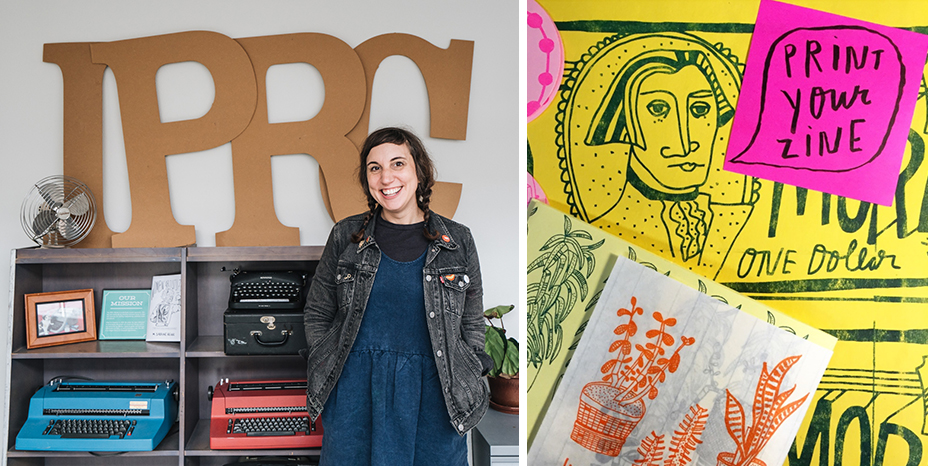
No. 176: Designer Chain Letters, Olde English “Craeft,” the Fonts of the New Year + More
Hello, and welcome to this week’s Design Diary, a collection of five projects from across the world that have impressed us this week.
Communication, by Albert Moya
Chef and artist Laila Gohar uses food as an artistic medium and communication tool, hosting “unique eating experiences that take place in non-traditional settings” around the world. When she created a food volcano a few years ago, it caught the eye of Albert Moya. It sparked the idea for Communication, a film made for Dropbox and The California Sunday Magazine’s Dropbox Stories campaign, which asked Gohar and three others, all located in different countries, to build an actual food volcano in Iceland.
Naturally, they used Dropbox to communicate. But the film is lovely: the four artists describe it as a visual dialogue amongst themselves, inspired by the work of Chris Marker. They explain, “it uses the free association of images and ideas. A voice-over accompanies explanatory text that reinforces the poetic and visual intentions.” It stars Moya in Florence, Gohar and Omar Sosa (a graphic designer) in New York, and Querida—who also provided the art direction— in Barcelona.
AIGA Portland, Portland Makers Series
“Imagine that your uncle is Robert Rauschenberg and that he leaves you his printing studio when he passes away,” starts out a new installment of the Portland Makers Series from our friends at Portland AIGA. “You and your favorite art buddies adopt it as your second home, exploring all his legendary printing methods and making art experiments for hours at a stretch. That’s what IPRC feels like—a dreamy art garage with a wide array of printing equipment.”
The Independent Publishing Resource Center in Portland.
For the uninitiated, writer Marilee Sweeney is rather poetically describing the Independent Publishing Resource Center. Founded by Rebecca Gilbert and Chloe Eudaly 20 years ago as a zine printing room, the center is now a 2,000 square foot space, “housing a wall of 20” iMacs, a screen-printing studio, a letterpress studio, a zine library, a bindery, and meeting spaces.” Membership fees are “radically low,” which feels very fitting to Portland, with those who can’t afford it able to volunteer. As Sweeney writes, “Generations of Portlanders have used IPRC to screen-print show posters, letterpress cards, bind chapbooks of their poetry, meet with their writing groups, and print their comic books.”
Plus, they’ve got a brand new, Kickstarter funded Risography studio. Even if you’re not able to pop over to Portland, these kinds of accessible, community focused maker spaces are getting rarer and rarer in cities these days—it’s interesting to see how this one’s maintained itself for two decades. Read on here.
Moo font forecasting
Welp guys, another year of fonts down, and a new one just begun. What typefaces can we expect to see all over the place in 2018? Digital print and design company Moo is on it: it’s tapped into its customer base to surveyed 1,300 of the design-savvy across the United States. Now it’s got Fonts of 2018 ready for us, based on the survey findings.
Here’s the forecast, according to Moo:
In the “Up and Coming” category:
● Basic Commercial
● Nexa
● Saturday Script
● Basis Grotesque
● Freight Sans
● Alcubierre
● Quainton
● Fortescue
● Leroy
● Luxia
And those “Go-tos”:
● Avenir
● Helvetica
● Avant Garde
● Proxima Nova
● Futura
● Garamond Pro
● Brandon Grotesque
● Gill Sans
● Sackers Gothic
● Georgia
“The biggest up and coming trend we’re seeing? The importance of simplicity,” says Moo’s global creative director, Brendan Stephens. “With the exception of Saturday Script and Quainton, the font choices are quite plain and slightly retro.” Nexa, he adds, “feels a bit utilitarian and masculine, both good in the right context.” And Helvetica’s holding in there, to no one’s surprise—61st year running.
4
Michael Bierut’s review of Craeft
“As daily life becomes increasingly virtual, it might seem like a paradox that making things by hand is suddenly big business,” observed Michael Bierut over at the New York Times Book Review last weekend. “Stores like Michaels and Hobby Lobby feature aisle after crowded aisle of sequins, tassels, imported papers, chenille stems, and pompoms. Etsy, the e-commerce platform for selling homemade goods, features nearly two million active sellers serving 30 million eager buyers.” Crafting is and has always been therapeutic, but last year it was also a $44 billion industry, according to the Association for Creative Industries.
Hm. It’s little wonder why in this current place in time, as swirling with inexhaustible anxieties as it is. But Bierut’s not just exploring the big business of craft, he’s writing about “craeft,” the Old English word that means, roughly, “a form of knowledge,” and the subject of a new book by British archaeologist and medieval historian Alexander Langlands. If Craeft: An Inquiry Into the Origins and True Meaning of Traditional Crafts doesn’t sound like the type of book that would stop you in your tracks in a bookstore, Bierut makes a good case for why it should. Read his description of Langlands description of making of the traditional wooden fence if you don’t believe me—a true testament to passion for the esoteric, and revelling in the minute details.
Often it takes a particular way of seeing to get others to appreciate these types of things. In the case of the book, says Bierut, “beyond the mastery of specialized skills, Langlands is talking about something more holistic: a way of looking at the world.”
5
Design Observer’s “Chain Letters” series
Perhaps you remember chain letters, those pass-it-forward missives that always end with a superstitious threat to dissuade you from breaking the chain? (“So-and-so received the chain. Not believing it, he threw it away. Nine days later he died.”—jog your memory?) Well! Our sister publication Design Observer has brought it back, in the form of a series of interviews.
Here’s how it’s describing it:
“We’re calling the series Chain Letters, a weekly Design Observer series in which we ask leading design minds about the state of the industry—and so do their peers—for a year-long conversation.”
Jessica Gaddis, a product designer working on Netflix’s Studio Engineering team, kicks of Design Observer’s Chain Letter series.
This week Netflix product designer Jessica Gaddis starts it off with an excellent interview about UX design and the tech industry. Next week, she kicks it over to R/GA’s Richard Ting with her own burning question for him. And that’s how it will continue the whole year long. Unless someone breaks the chain. DO’s too classy for veiled threats, but I think we all know that would be Very Bad.